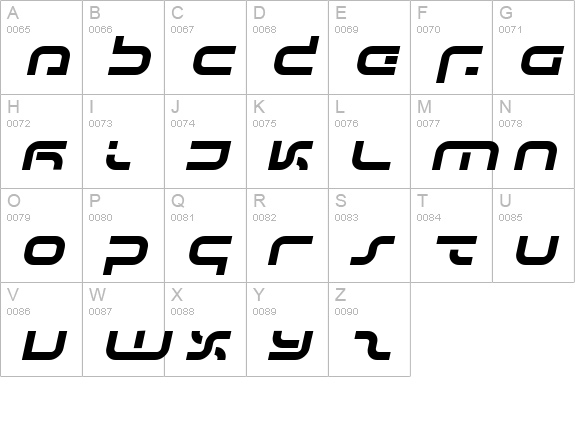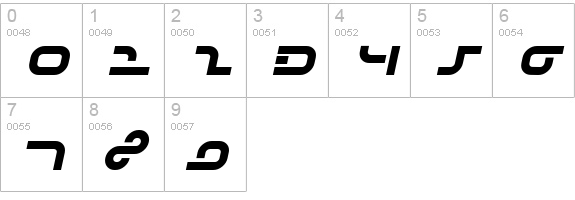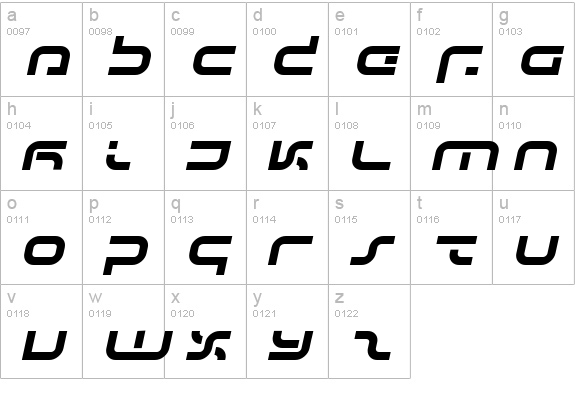
IJ19 12 Font Details
Introducing IJ19 12 font, a stunning typeface that effortlessly combines elegance with versatility. With its clean lines and modern aesthetic, this font is perfect for a wide range of design projects, from branding and packaging to advertising and editorial layouts. But what truly sets IJ19 12 font apart is its unique quality of being freely available for download. At FontsMarket.com, you can access this exceptional font without any cost. It's a rare opportunity to enhance your creative endeavors with a premium font that doesn't require any investment. IJ19 12 font showcases a harmonious balance between simplicity and sophistication. Its carefully crafted letterforms possess a timeless appeal, making it suitable for both professional and personal use. Whether you're designing a logo, creating stunning graphics, or even crafting an eye-catching website, this font will effortlessly elevate your projects to new heights. The attention to detail in IJ19 12 font is evident in every character. From its perfectly balanced proportions to its smooth curves, each letter has been meticulously crafted to ensure legibility and visual impact. The result is a font that not only catches the eye but also conveys a sense of professionalism and refinement. With its extensive character set, IJ19 12 font offers support for multiple languages, making it a versatile choice for designers across the globe. Additionally, its compatibility with various design software ensures a seamless integration into your creative workflow. Don't miss out on the opportunity to elevate your designs with IJ19 12 font. Download it for free at FontsMarket.com and unlock a world of endless possibilities. Whether you're a seasoned designer or just starting your creative journey, this font will undoubtedly become a valuable asset in your toolkit. Embrace the freedom to create and let IJ19 12 font take your designs to new heights.